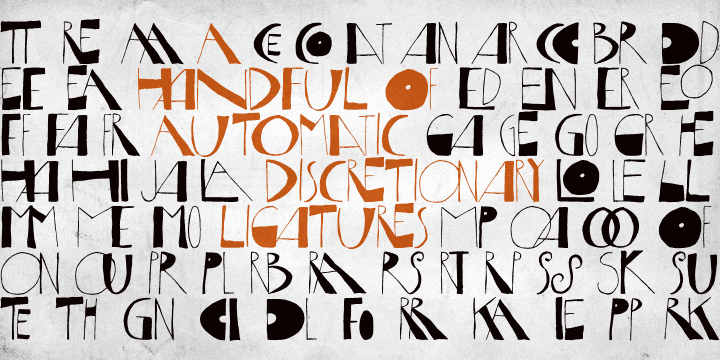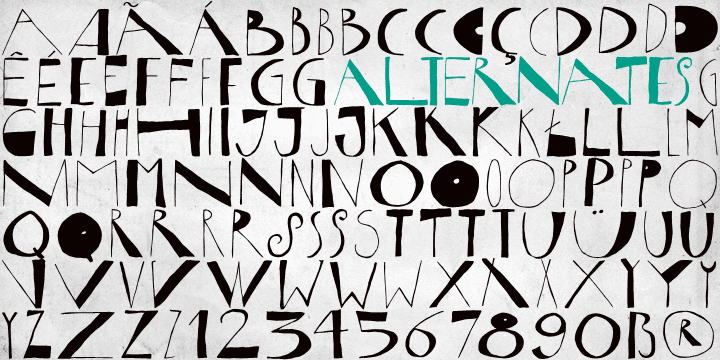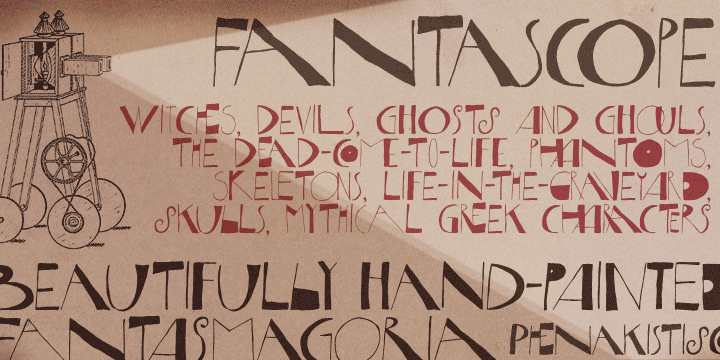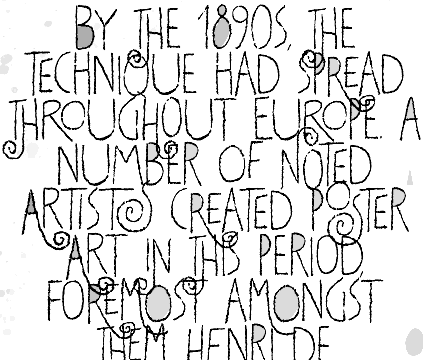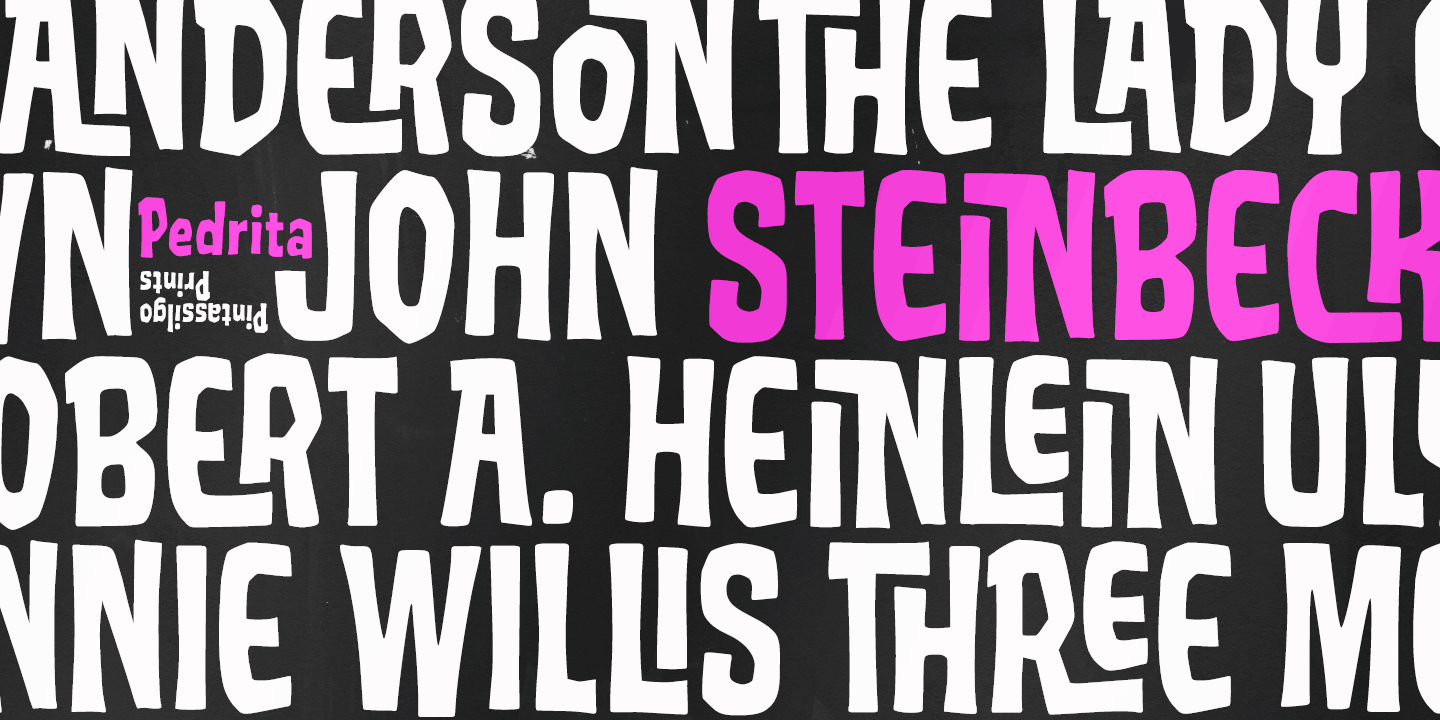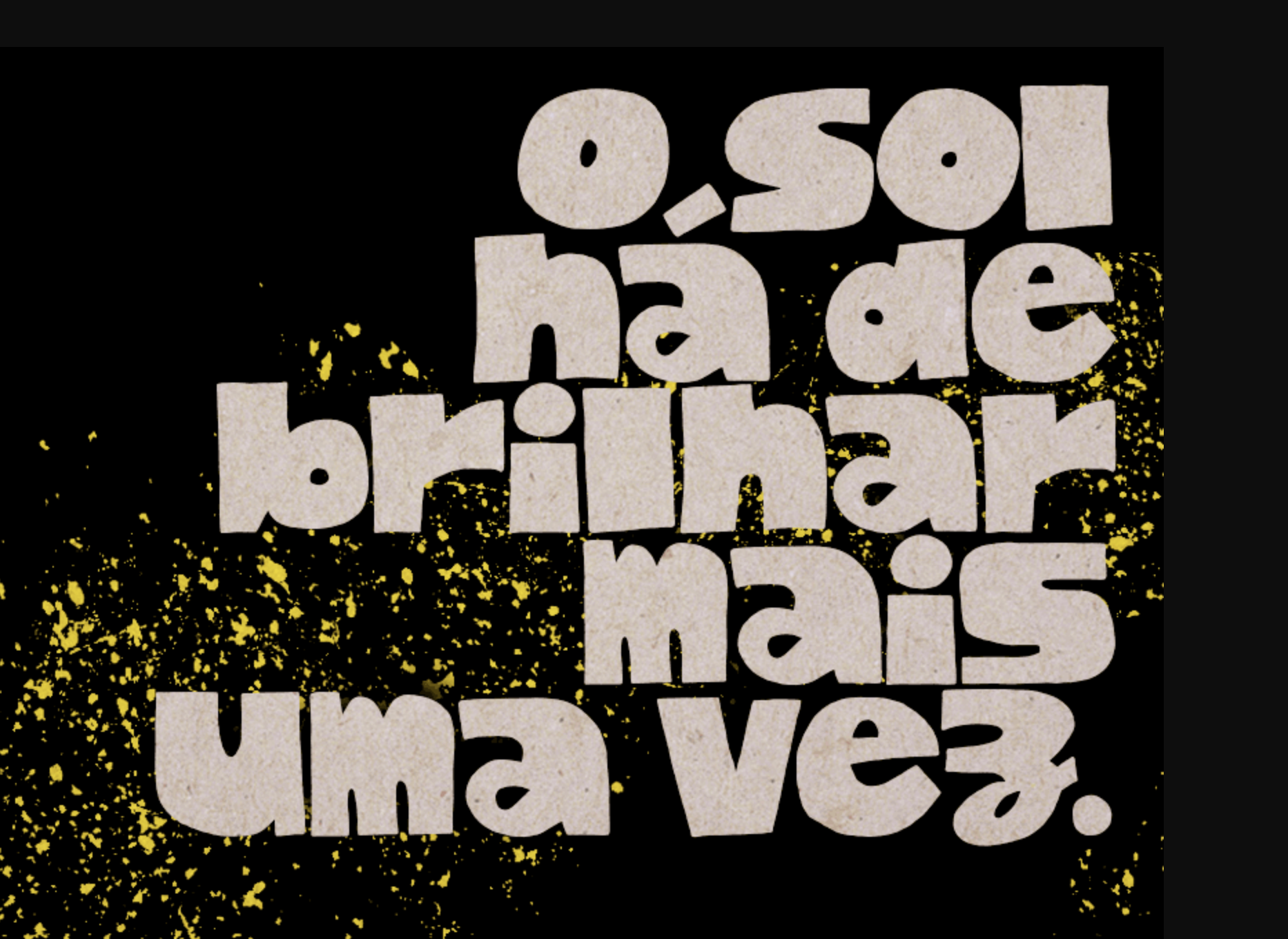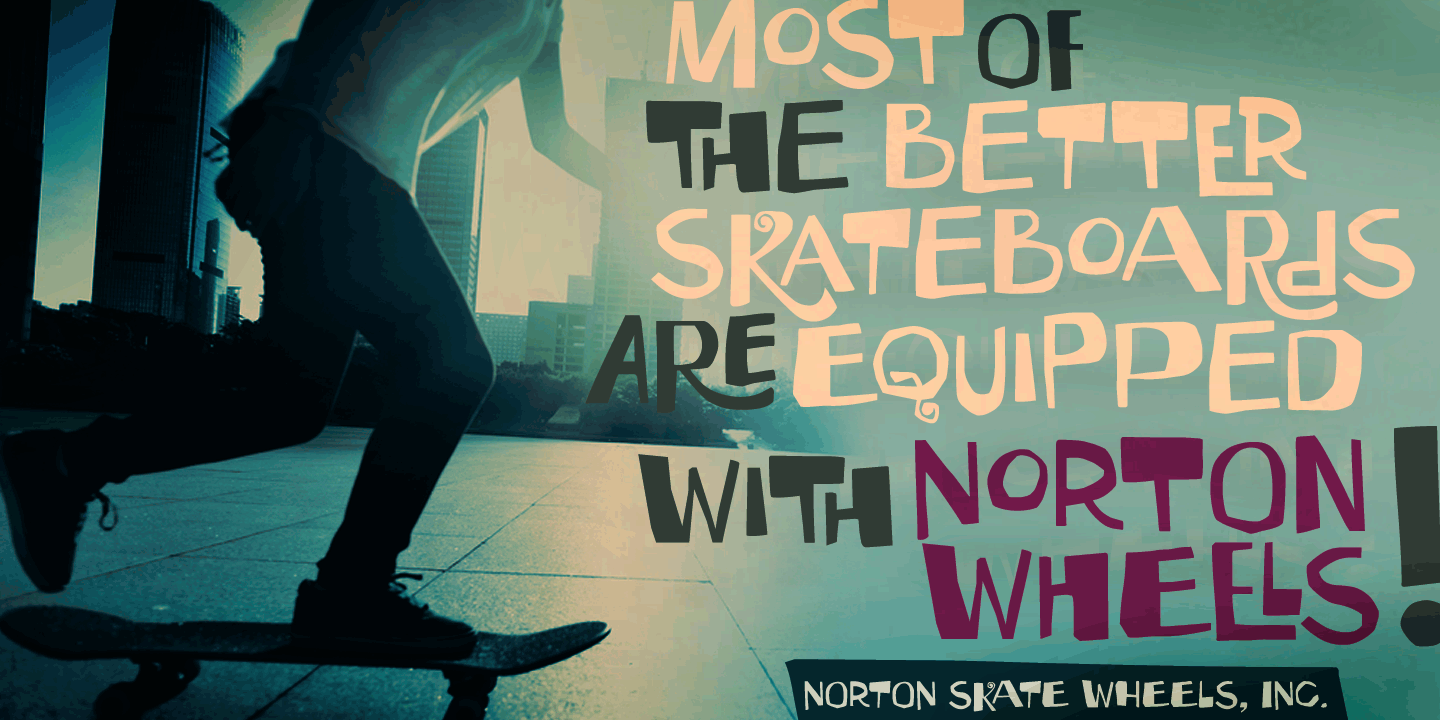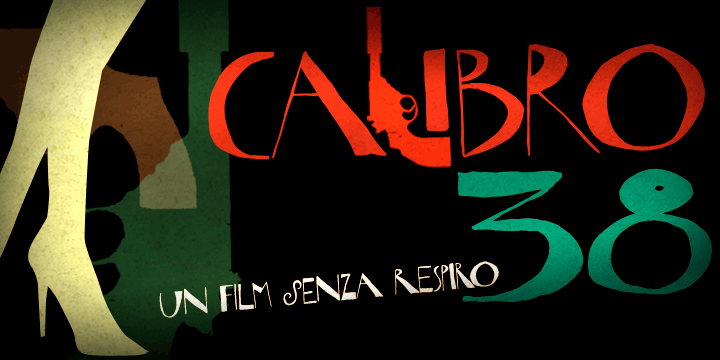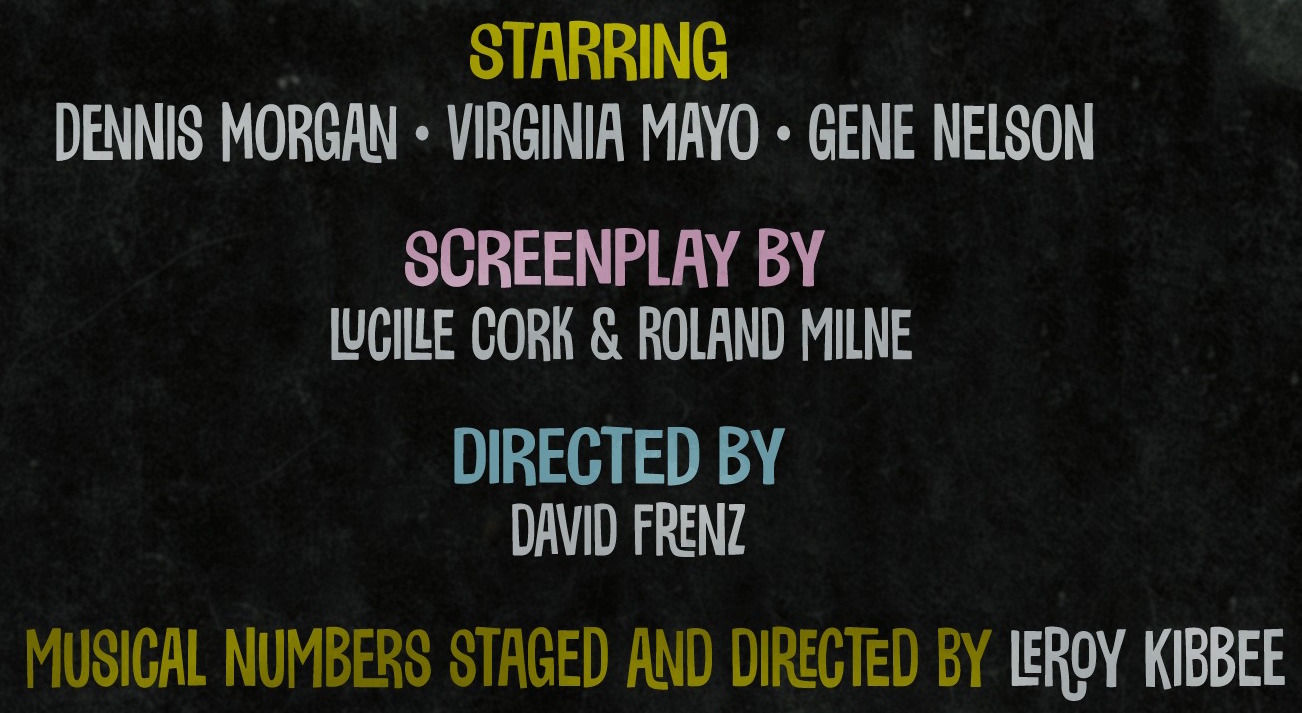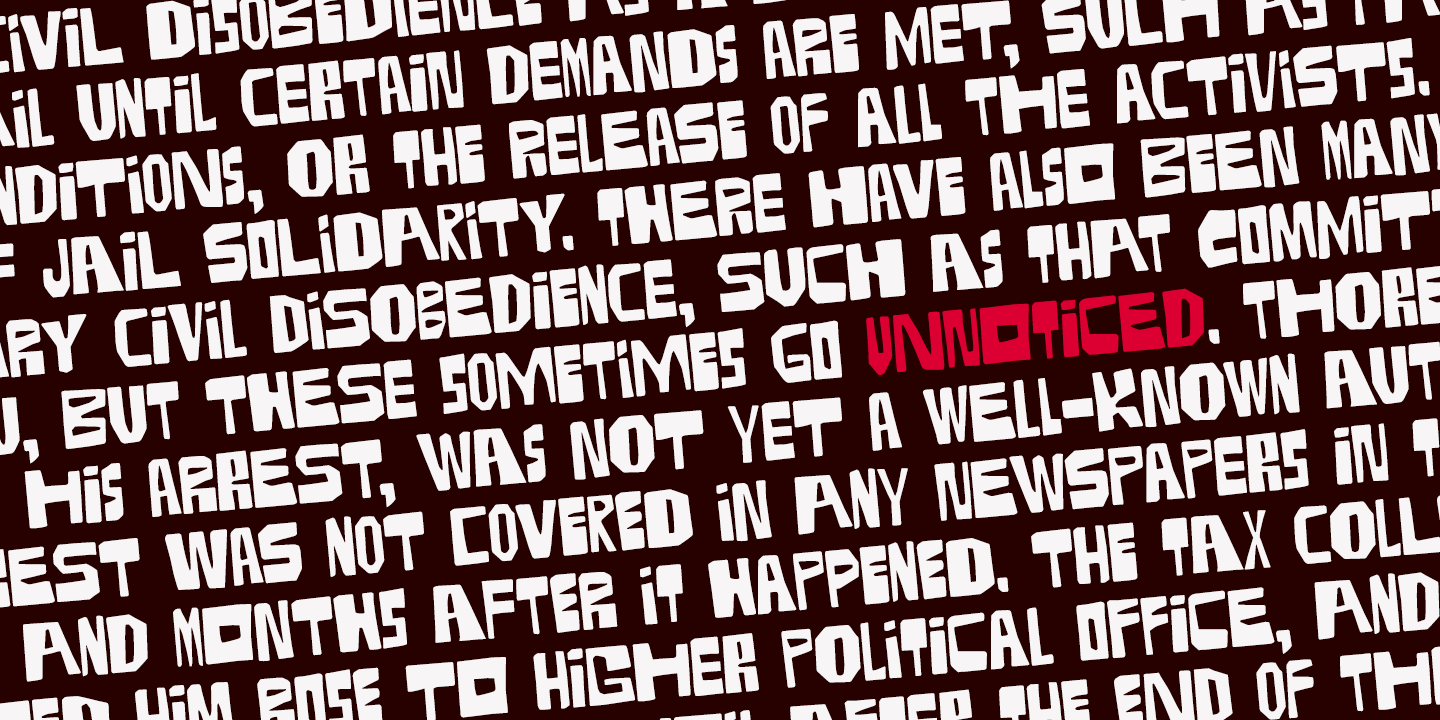
Erica Jung
Brazilian printmaker, graphic artist and illustrator, b. 1975. Her fonts are created together with Ricardo Marcin at Pintassilgo Prints (est. 2009). Pintassilgo relocated to Florianopolis at some point. Her fonts at PintassilgoPrints include Petulante (scratchy caps) (2021), Skaligari (eighties punk) (2021), Slotrip (2021), Soapy (foam-textured caps) (2021), Conversa (2021), Tenacious Brush (2021), Clarks (2021: a modular typeface based on the work of Lygia Clark, one of the giants of Brazilian postwar art), Cachalote (a poster typeface) (2021), Search (an all caps dry brush font) (2020), Grok (2020), Pickles (2020), Pain de Mie (2020), Outside (2020), Altogether (2020: a doodling beauty with eight choices for each glyph), Ars Nova (2019: art nouveau), Pind-O-Rama (2019), Pieches (2019: a linocut font inspired by the powerful political and social posters by Paul Peter Piech), Soundstar (2019), Clafoutis (2019), Pedrita (2018), Transmogrified (2018), Melodia (2018), Minute (2018), Mindset (2018), Salted (2018), Plunct Plact (2017: a children's script), Manihot, Brushtones (2017), Strange Times (2017), Mudstone (2017), Plumcake (2017), Cordelia (2017), Dunkelbunt (2016, inspired by the eccentric artist, architect and designer Friedensreich Hundertwasser), Chronic (2016, influenced by the work of HAP Grieshaber and Willem Sandberg; expanded in 2020 to Anachronic), Unboring (2016), Sunbeat (beatnik style), Hand It (2016, a childish script), Botanique (2016, after Lucian Bernhard's Schmalfette Bernhard Antiqua, 1912), Somehand (2015), Gumdrop, Granz (2015: retro lettering based on a Porgy & Bess album cover by David Stone Martin), Stabile and Stabile Toys (2015, handcrafted), Cluster (2015, a layered letterpress emulation typeface), Stick Around (2014), Marker Aid, Unpack, Felt Noisy (fat brush), Blueshift (2014), Daft Brush (2014, a vernacular brush), Tuesnight (2014, offbeat poster font), Periplus (2013), Marujo (2013: a decorative typeface inspired by paintings of Arthur Bispo do Rosário, a Brazilian artist who lived for 50 years in a psychiatric institution), Brush Up (2013: a rough brush script), Undersong (a stackable script system), Tremendous (2013: a retro poster typeface), Rockinstead (2013), Runcible (2013, +Cleft, its glaz krak version), Mamute (2013: a layered letterpress style type system), Sabotage (2013: squarish poster font inspired by the iconic Vertigo movie poster by Saul Bass), Sheldon (2013, based on posters by the Polish graphic artist Marian Stachurski; +Extras), Dranskof (2013, inspired by a page from a publication for children by Serbian writer, poet and journalist Dusko Radovic), Gentil (2012, an all caps poster font), Sundowners (retro poster face), Kokoschka (2012, based on the lettering on the poster of an expressionist play by Austrian painter, printmaker and writer Oskar Kokoschka in 1909), Monstrinhos (2012, dingbats), YWFT Duncan (2012), Card-o-mat (2012, bird dingbats), Soundtrack (2012), Monstro (2012, fat poster face), Attic (2012).
Typefaces from 2011: Melkslijter (2011, a stylish art deco typeface based on a brochure by Dutch graphic artist Dirk Hart), Polyspring (2011, a Victorian typeface hand-drawn based on Italia Condensed, Keystone, 1906), Berimbau (2011), Populaire (2011, a hand-drawn poster caps typeface that was inspired by the electrifying posters from May 1968 by Atelier Populaire, and loaded with alternates to give a random effect), Manicuore (2011, a hand-drawn typeface inspired by Italian movie posters by the prolific movie poster artist Symeoni, aka Sandro Simeoni), Smashing (2011, a fat hand-printed poster face), Chancellor (2011), the eccentric poster face Polygraph (2011, based on lettering of the Polish poster artist Leszek Zebrowski. Images: i, ii, iii, iv, v, vi, vii, viii, ix, x), the vintage serif typeface Organically (2011), Transitore (2011: Transitore is a lively hand-drawn font with loads of alternates and ligatures which, managed by advanced OpenType features, help create a convincing handcrafted look), the poster display typeface Sforzando (2011; +Alto), the signage typeface Jongleur (2011).
Typefaces from 2010: the Cuban poster typeface Transmogrifier (2010, based on lettering by Cuban poster artist Eduardo Muñoz Bachs), the ultra-fat art deco typeface Loudine (), Crocante (2010, comic book face), Love Birds Pattern (2010), Swung Note (2010), Amarelinha (2010, hand-printed), Cuadrifonte (2010, a fat hand-printed family including styles called Pics, Sketch (regular), Fill and Line), Xylo Sans (2010, wooden texture face), Ritornelos (2010, a curly all caps hand-printed face), Roadway (2010, based on wood Clarendons), Bandoliers (2010, an informal hand-printed sketched face, with 3D versions such as Beefy, High and Rocky), Changing (2010), Vitrines (2010, hand-printed), Prokaryotic (2010, a "bacterial attack" face), Football World (2010, soccer silhouettes), Singela (2010), Butterfly Effect (2010), Tonal (2010, ultra-fat with mini-counters), Dynatomic (2010, inspired by the hand-drawn lettering of a 1964 polish movie poster designed by Andrzej Krajewski), Lovebirds (2010, bird silhouettes), Somewhat (2010, hand-drawn), Oyster (2010, hand-drawn dingbats), Grante (2009, a lively poster face), Mondiale (2009), Nanquim (2009, sketched letters), Merceria Antique (2009) and Arca (2009, + Dashed). All have an informal and attractive look, and were co-designed with Ricardo Marcin.
The prints of Horst Janssen had a characteristic uneven hand-printed lettering that led Erica Jung and Ricardo Marcin to design the multi-featured opentype typeface Horst (2010). Nova Horst followed in 2012.